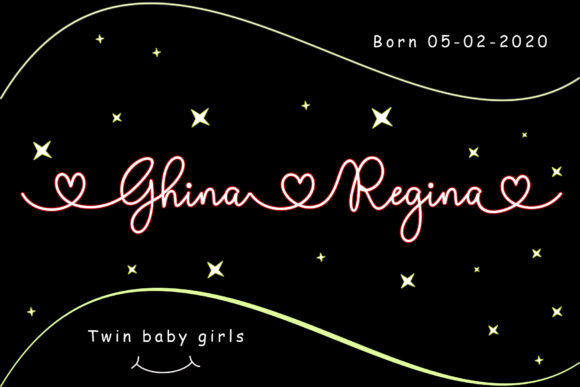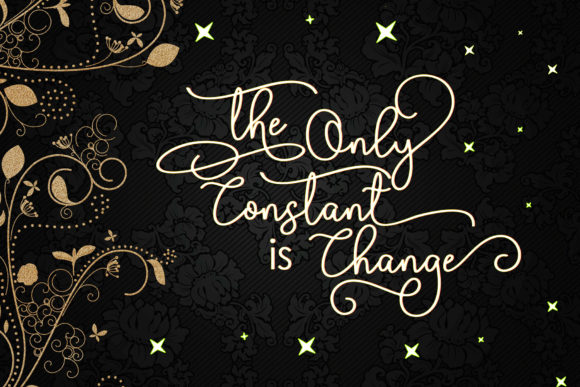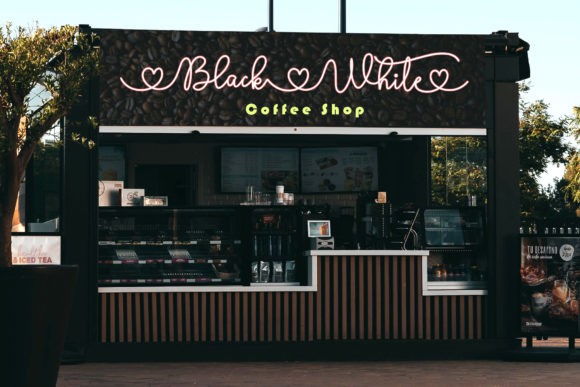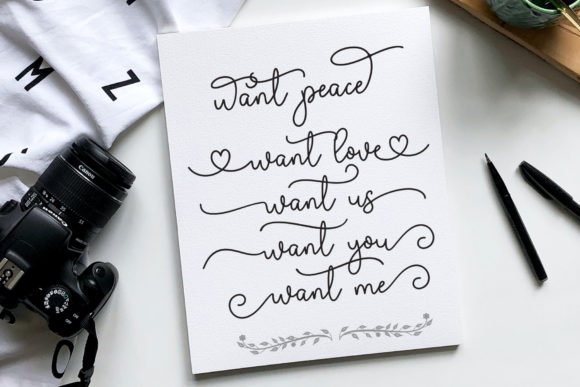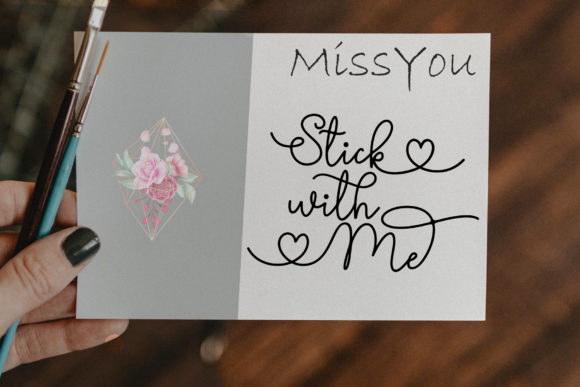
Introduction to Mono Love Font
Have you ever been working on a creative project and suddenly, the perfect font just pops into your mind? For designers, this moment is pure magic. For me, it was the moment I stumbled upon the Mono Love Font. As I browsed through the endless options, its handwritten charm and high-quality design caught my eye. This sweet font is perfect for adding a personal touch to your designs, and its versatility makes it a go-to choice for any creative project.
Whether you’re working on a wedding invitation, a thank you card, or a logo, Mono Love Font is sure to bring a touch of elegance and sophistication to your design. With its smooth lines, gorgeous glyphs, and stunning alternates, this font is a design resource like no other. And the best part? It’s PUA encoded, making it easy to access all the glyphs and swashes you need.
Key Features of Mono Love Font
- High-quality design resource suitable for creative projects requiring a unique, stylish font.
- Transparent background option, allowing for easy customization and layering in design applications.
- Includes a range of glyphs and characters, making it suitable for a variety of creative projects.
- Designed to be highly legible, even at small font sizes, ensuring your design stands out.
Honest Review: Mono Love Font
I recently had the opportunity to work with the Mono Love Font, and I must say it’s been a delightful experience. As a designer, I’m always on the lookout for high-quality design resources that can elevate my creative projects.
Here are some of the things that work well with this font:
- ✨ High-quality typography that’s perfect for body text or headings.
- ✨ A clean and modern design that’s great for creative projects, from digital to print.
- ✨ A transparent background, making it easy to use on any design surface.
- ⚠️ The font may not be suitable for all types of projects, particularly those that require a more rustic or distressed look.
Overall, I’m impressed with the Mono Love Font, and I think it’s a great addition to any designer’s toolkit. Its high-quality typography and modern design make it perfect for a wide range of creative projects. Just be aware of the limitations, and you’ll be all set to create some amazing designs!
Tips for Getting the Most Out of Mono Love Font
Experiment with different font sizes and styles to create a unique design. Use the Mono Love Font in combination with other design resources to add depth and visual interest to your project.
The Mono Love Font is ideal for creative projects that require a clean and modern aesthetic. Use it for logos, branding materials, and social media graphics. Its high-quality design and transparent background feature make it a versatile design resource.
Alternatives to Mono Love Font
The Great Vibes Font is a beautiful, high-quality script font perfect for creative projects requiring a touch of elegance. Its transparent background makes it ideal for use on any background, and it’s available for free download. Great Vibes Font is ideal for wedding invitations, signage, and other design elements where a romantic feel is desired.
Compared to Mono Love Font, Great Vibes Font offers a more elegant and refined look, making it suitable for more formal projects.
Pacifico Font is a modern, stylish script font that’s perfect for creative projects requiring a touch of sophistication. It’s available for free download and features a transparent background, making it easy to use on any design. Pacifico Font is ideal for use in branding, packaging, and advertising materials.
Can I use Mono Love Font with a transparent background?
Yes, the Mono Love Font has a transparent background, making it perfect for use in designs that require a high level of customization and flexibility. You can use the font with a transparent background in design software such as Adobe Photoshop or Illustrator.